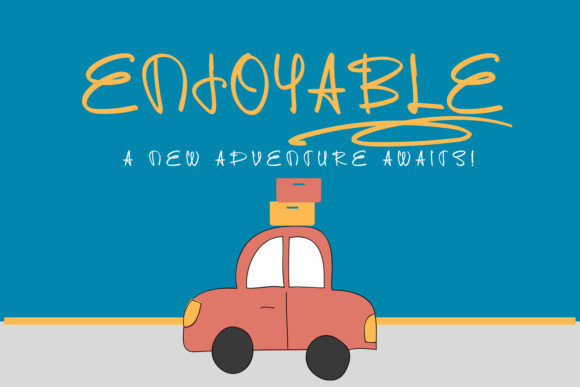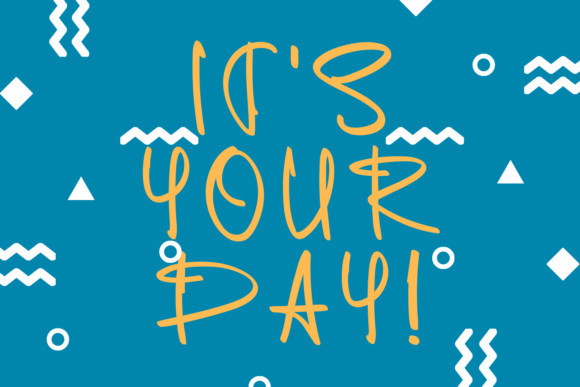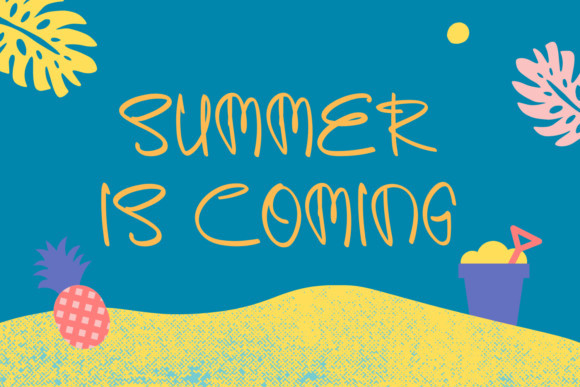
Enjoyable Font
Enjoyable is a playful and whimsical display font. Whether you’re using it for crafting, digital designing, presentations or greeting cards making, it’s perfect!